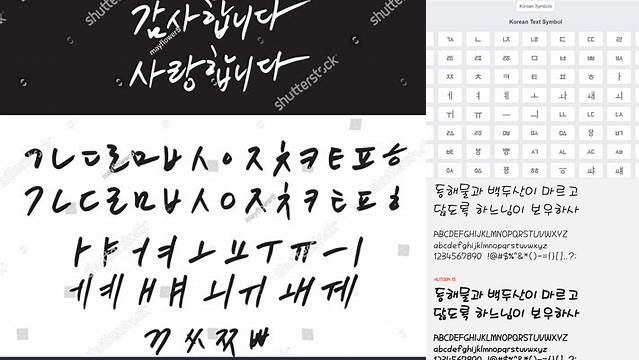
Korean Fonts: Copy, Paste, And Aesthetic Magic!
Hey guys! Ever scrolled through social media, seen those super cool, stylish Korean captions or usernames, and thought, "How do they DO that?!" Well, secret's out â it's often all about the Korean fonts copy paste aesthetic. It's like having a secret weapon to instantly elevate your online presence, making your text pop with a unique flair thatâs totally you. Whether youâre a K-pop stan, a drama lover, or just someone who appreciates beautiful typography, understanding how to use these aesthetic Korean fonts can seriously level up your game. We're talking about transforming plain text into something visually captivating, something that tells a story even before you read the words. This isn't just about looking pretty, though; it's about creating a vibe, an identity, a whole mood for your online persona. Imagine your Instagram bio, your Twitter header, or even your digital journaling â all infused with that unmistakable Korean aesthetic. Itâs accessible, itâs fun, and honestly, itâs addictive once you start playing around with it. So, buckle up, because weâre diving deep into the wonderful world of Korean fonts, exploring how you can easily copy and paste them to create stunning, aesthetic results that will make your friends go, "Whoa!" Get ready to unlock a new level of digital creativity, making your online world a little more stylish, a little more unique, and a whole lot more you. Itâs time to ditch the default fonts and embrace the magic of Korean typography.
The Charm of Korean Aesthetic Fonts: Why They Stand Out
Alright, let's talk about why these Korean aesthetic fonts have such a magnetic pull, guys. It's more than just a trend; there's a genuine artistic quality to them that resonates with people. Think about it: standard fonts are often clean, functional, and maybe a little, dare I say, boring. Korean aesthetic fonts, on the other hand, are like a breath of fresh air. They come in an incredible variety, from delicate and flowing scripts that resemble brushstrokes to bold, impactful characters that have a strong graphic presence. Many of them are designed with a keen eye for balance and harmony, drawing inspiration from traditional Korean calligraphy, art, and even nature. This deep cultural root gives them an authentic feel that you just donât get with Western fonts. When you use them, youâre not just typing; youâre weaving a bit of Korean culture and artistry into your digital communication. This is especially true when you focus on the aesthetic aspect. Weâre talking about fonts that evoke specific moods: playful, elegant, mysterious, modern, or even a bit quirky. The visual language of these fonts can communicate emotion and personality in a way that plain text simply can't. For instance, a delicate, wispy font might convey a sense of shyness or artistic sensitivity, while a more angular, sharp font could express confidence and modern edge. This nuanced communication is a huge part of their appeal. They allow you to express yourself beyond just words, adding layers of meaning and visual interest. Plus, in a world saturated with digital content, standing out is key. Using unique Korean aesthetic fonts is a fantastic way to make your profile, your posts, or your messages instantly recognizable and memorable. Itâs a form of digital self-expression thatâs both creative and accessible. The ability to easily copy and paste them means anyone can experiment and find fonts that truly represent their individual style or the specific vibe they want to create. Itâs like having a personal stylist for your text, helping you curate the perfect look. So, next time youâre thinking about how to make your online presence more captivating, remember the power of these beautiful, culturally rich Korean aesthetic fonts. Theyâre a simple yet powerful tool to infuse your digital world with artistry and personality.
Understanding Korean Typography: Beyond Just Characters
So, what makes Korean typography so special, you ask? Itâs really fascinating when you break it down, guys. Unlike the Latin alphabet, which is primarily composed of individual letters, Korean, or Hangeul, is structured into syllable blocks. This fundamental difference allows for a much wider range of visual possibilities when it comes to font design. Each block can be arranged in various ways â stacked vertically or horizontally â and the interplay between consonants and vowels within these blocks creates a unique canvas for designers. Korean aesthetic fonts often play with these block structures, manipulating the spacing, weight, and style of the jamo (the individual consonant and vowel components) to create distinct visual personalities. Think about the artistry involved: a font might emphasize the roundness of certain vowels or the sharpness of specific consonants, creating a flowing, organic feel, or a more geometric, structured look. This level of detail and intentionality is what sets Korean typography apart. Itâs not just about legibility; itâs about creating a visual rhythm and aesthetic appeal within each syllable block and across the entire text. Many Korean fonts are also influenced by traditional Korean art forms, such as calligraphy, ink painting, and even traditional patterns. Youâll find fonts that mimic the texture of brushstrokes, the subtle variations in ink density, or the elegant curves found in traditional architecture and textiles. This connection to heritage gives these fonts a depth and authenticity thatâs incredibly appealing. Furthermore, the development of digital Korean fonts has seen incredible innovation. Designers are constantly pushing boundaries, creating fonts that are both contemporary and rooted in tradition. You see fonts that are minimalist and clean, perfect for a modern, chic aesthetic, and then you see others that are ornate and decorative, adding a touch of vintage charm or playful flair. The key takeaway here is that Korean typography is a dynamic field where cultural heritage meets digital creativity. Understanding this context helps us appreciate why Korean aesthetic fonts feel so unique and captivating. They are the result of a rich linguistic structure combined with a strong artistic sensibility, offering a world of expressive possibilities for anyone looking to add a special touch to their digital communication. Itâs a beautiful fusion of language, art, and technology, making Hangeul a truly versatile and visually engaging writing system.
The Art of Korean Font Selection: Finding Your Vibe
Picking the right Korean font for aesthetic purposes is kinda like choosing an outfit, you know? Itâs all about expressing a mood, a personality, and making a statement. With the vast array of Korean fonts available, finding that perfect one can feel overwhelming, but itâs also super fun! The key is to consider the vibe youâre going for. Are you aiming for something super cute and bubbly, maybe for a personal blog or a fan account? Then youâll want to look for fonts with rounded edges, perhaps a slightly playful slant, or even little decorative elements. Think of fonts that look like they were handwritten with a cheerful marker. On the flip side, maybe youâre going for a more sophisticated, elegant, and minimalist look for your business profile or a more mature aesthetic. In that case, youâd lean towards cleaner lines, perhaps a more classic Hangeul structure, or fonts that have a refined, almost calligraphic feel without being overly ornate. Think of fonts that evoke a sense of calm and order. For those who love the K-drama or K-pop scene, you might want fonts that reflect that trendy, stylish energy. This could mean bolder fonts with sharp edges, unique character shapes that stand out, or even fonts that have a slightly retro or futuristic feel, depending on the specific trend youâre channeling. Don't be afraid to experiment! Try out different fonts for different purposes. A font that looks amazing for your Instagram bio might not be the best choice for a formal email (though who knows, maybe it could be for a really cool email!). The beauty of the copy-paste method is that you can easily try out different styles without any commitment. Just copy, paste, see how it looks, and if itâs not quite right, paste another one! Itâs a low-stakes way to discover what truly resonates with your personal style. Consider the context too. A font thatâs super decorative might be hard to read in large blocks of text, so itâs often best reserved for headings, usernames, or short phrases where its visual impact can shine. For longer captions or descriptions, a slightly simpler, more legible aesthetic font might be a better choice. Ultimately, finding your vibe with Korean fonts is a journey of exploration. Browse through font generators, look at examples online, and trust your instincts. What speaks to you? What feels most authentic to the message you want to convey? Thatâs your Korean font. Itâs about finding that sweet spot where readability meets undeniable style, creating a digital signature thatâs uniquely yours.
Exploring Different Styles: From Cute to Chic Korean Fonts
Okay, guys, let's dive into the fun part: exploring the sheer variety of cute Korean fonts and chic Korean fonts you can use! It's like having a massive digital makeup kit for your text. For those leaning towards the adorable and kawaii aesthetic, there are tons of options. Think fonts with soft, rounded shapes, perhaps with a slightly bouncy baseline or exaggerated features like big, friendly vowels. These fonts often give off a youthful, energetic, and super approachable vibe. Theyâre perfect for fan accounts, personal blogs where you share your daily life, or anything you want to feel extra friendly and inviting. Imagine using a font that looks like it was written by a character in a slice-of-life anime â thatâs the kind of charm weâre talking about! You can find fonts that have a hand-drawn feel, almost like a doodle, which adds an extra layer of personality and warmth. Then you have the chic Korean fonts. These are the ones that exude sophistication, elegance, and a modern, often minimalist, sensibility. They might feature clean, crisp lines, a more balanced and structured Hangeul block, or perhaps a subtle flair that hints at traditional calligraphy without being overly complex. These are fantastic for professional profiles, minimalist journaling, or any situation where you want to convey a sense of refined taste and understated style. Think of the typography you see in high-end fashion magazines or sleek tech company branding â thatâs the kind of effortless cool these fonts can bring to your digital space. Beyond just cute and chic, youâll also find fonts that lean towards a more artistic or vintage feel. Some Korean fonts have a brushstroke quality, reminiscent of traditional East Asian calligraphy, offering a sense of depth and cultural richness. Others might have a distressed or textured look, giving them a vintage or grunge aesthetic that can be really impactful. There are even futuristic or sci-fi inspired fonts that play with geometric shapes and sharp angles. The key is to explore and see what resonates with you. Don't be afraid to mix and match, either! You could use a bolder, more decorative Korean font for your username and a cleaner, more legible one for your descriptions. The possibilities are endless, and the best way to find your favorites is simply to play around. Use a Korean font generator or search for examples online, then practice the copy-paste magic. See how different styles transform the same words. This exploration is what makes the aesthetic Korean font scene so exciting â itâs a constant discovery of new ways to express yourself visually.
The Power of Korean Fonts for Social Media Bios
Alright, let's talk about making your social media bio sing, guys! Your bio is prime real estate â it's often the first thing people see when they land on your profile, and using Korean fonts for bios is a brilliant way to make an instant, memorable impression. Think about it: everyone else might be using the standard system fonts. By incorporating a stylish Korean font, you immediately grab attention and signal that you have a unique sense of style. Itâs a subtle yet powerful way to stand out from the crowd and showcase your personality. Whether youâre aiming for a cute, chic, artistic, or even a mysterious vibe, thereâs a Korean font that can help you achieve it. For example, if youâre a K-beauty enthusiast or a fan of Korean dramas, using a font that has a slightly elegant or trendy feel can perfectly reflect your interests. Itâs like saying, âThis is what Iâm about,â without using up precious character count on explaining it. Imagine your Instagram bio: instead of just your name and a few emojis, you have your name or a catchy phrase written in a beautiful Korean font. It adds a visual hook that encourages people to explore your content further. Itâs also a great way to incorporate keywords or themes related to your niche. If youâre a travel blogger focusing on East Asia, a stylish Korean font can add an authentic touch to your bio. The key is to choose a font that is still legible enough for people to understand what youâre saying, especially if your bio includes important information like links or calls to action. While super decorative fonts can look amazing, sometimes a slightly simpler, yet still distinctive, Korean font strikes the perfect balance for bios. Experiment with different fonts to see how they change the overall look and feel of your profile. Copy-pasting these fonts is incredibly easy, so you can try out several options before settling on the one that feels just right. Itâs a simple hack that has a disproportionately large impact on your profile's aesthetic appeal. Make your bio work harder for you by giving it that special Korean font treatment â itâs a small change that makes a big difference in reflecting your unique style and interests.
####### Making Your Instagram Captions Pop with Korean Text
Ever wanted your Instagram captions to have that extra oomph, that special something that makes people stop scrolling and double-tap? Using Korean text in captions can totally do that for you, guys! Itâs a fantastic way to add a layer of visual interest and express a certain mood or aesthetic. Imagine writing a heartfelt caption about your love for K-culture, and then weaving in a key phrase or your username in a beautiful Korean font. It instantly adds context and flair, connecting you more deeply with your audience who appreciate that aesthetic. Itâs not just about using the font; itâs about using it strategically. You could use a bold, eye-catching Korean font for a title or a key quote within your caption, making it stand out from the regular text. Or perhaps you use a more delicate, flowing font for a more personal or reflective part of your caption. This variation in typography adds rhythm and visual appeal, guiding the readerâs eye through your content. Itâs also a subtle nod to your interests, particularly if youâre a fan of Korean music, movies, or art. Think about how K-pop idols or Korean influencers often use unique fonts in their social media posts â itâs part of their curated online image. You can borrow from that inspiration! The beauty of the copy-paste method is that it allows you to seamlessly integrate these stylish Korean characters into your existing captions without needing any special software. Just draft your caption, find the Korean font you like, copy it, paste it right into your caption text, and voilĂ ! Youâve instantly elevated the visual presentation. Remember to consider readability, though. If youâre using a very decorative font, it might be best for shorter phrases or words to ensure your message still comes across clearly. But for adding that extra touch of style, personality, and aesthetic appeal, incorporating Korean text and fonts into your Instagram captions is a game-changer. Itâs a simple yet effective way to make your content more engaging and visually memorable, showing off your unique taste and interests to the world.
######## Finding Aesthetic Korean Fonts Online: Tools and Resources
So, where do you actually find all these amazing aesthetic Korean fonts? Itâs easier than you might think, guys! The internet is basically a treasure trove. One of the most popular and straightforward methods is using online Korean font generators or symbol converters. These websites are designed specifically for this purpose. You type in your text in English (or sometimes Korean, depending on the generator), and it spits out various stylized versions of your text using different Unicode characters that mimic Korean Hangeul or other aesthetic styles. Many of these generators offer a wide range of styles, from elegant and cursive to bold and blocky, allowing you to experiment and find the perfect look. Just search for terms like âKorean font generator,â âaesthetic text generator,â or âfancy Korean textâ and youâll find plenty of options. Another great resource is looking at existing social media profiles, especially those of your favorite K-pop idols, K-drama actors, or popular Korean influencers. They often use unique fonts in their usernames, bios, and posts, and you can often see what kind of styles are trending. While you might not be able to copy their exact font (as some might be custom or require specific apps), you can get a really good idea of the aesthetic you like and then search for similar styles using the generator tools. Websites dedicated to typography and font design might also feature collections of Korean-inspired or aesthetic fonts, although these might sometimes require installation rather than direct copy-pasting. However, for the ease of copy-pasting, the online generators are usually your best bet. Remember that these are often special Unicode characters designed to look like Korean fonts, rather than actual installable Korean fonts. This is what makes them universally copy-pasteable across different platforms and devices. So, keep experimenting with different search terms and exploring various websites. Youâll quickly discover a fantastic collection of tools that will help you find the perfect Korean aesthetic fonts to make your digital presence truly shine. Itâs all about exploring the digital landscape and finding those hidden gems that allow you to express your unique style.
######### The Technical Side: Unicode and Copy-Pasting Korean Fonts
Alright, letâs get a little nerdy for a sec, guys, and talk about the magic behind Korean fonts copy paste. How does it actually work? Itâs all thanks to something called Unicode. Think of Unicode as a universal standard that assigns a unique number (a code point) to every character, symbol, and emoji across different languages and platforms. So, when you see those super cool Korean aesthetic fonts, youâre not actually seeing a different font file being loaded. Instead, youâre seeing text thatâs been created using special Unicode characters that look like Korean Hangeul or have an aesthetic style. Websites and tools that generate these aesthetic fonts are essentially taking your regular text and replacing each character with its corresponding, visually styled Unicode equivalent. For instance, a simple 'a' might be replaced with a Unicode character that looks like a decorative Korean vowel, or a space might be replaced with a special Unicode space character that affects kerning or spacing. This is why you can copy and paste these stylish texts from one application (like a browser) to another (like Instagram or Twitter) and have them display correctly, as long as the platform supports those specific Unicode characters. Most modern platforms â social media sites, messaging apps, browsers â are pretty good at rendering a wide range of Unicode characters, which is why this copy-paste method is so effective. However, there might be instances where a platform doesnât support a particular character, and it might appear as a blank square (often called a âtofuâ or âmissing characterâ symbol). This is rare with common aesthetic fonts, but itâs something to be aware of. The beauty of this system is its universality. You donât need to install any special Korean keyboard or font pack on your device to use these aesthetically modified texts. You just need a way to generate them (like an online tool) and a platform that can display them. Itâs this underlying technology of Unicode that empowers us to easily add that unique Korean aesthetic flair to our online communication, making our text visually exciting and distinct without any complex technical hurdles. Itâs basically digital magic powered by a universal character code.
############### The Evolution of Korean Aesthetic Typography
Itâs super interesting to think about how Korean aesthetic typography has evolved, guys. Hangeul, as a writing system, is relatively young compared to many others, and its digital evolution has been incredibly rapid. Initially, when computers and digital devices first became widespread, Korean character display was quite basic. Fonts were often limited, functional, and focused purely on legibility within the constraints of early digital technology. However, as technology advanced and design software became more sophisticated, Korean typographers and designers began to explore the immense creative potential of Hangeul. They started drawing inspiration from traditional Korean art forms â calligraphy, ink painting, traditional patterns, and even the natural curves found in Korean landscapes â and translating these influences into digital fonts. This led to the creation of fonts that were not just legible but also expressive and artistic. The rise of the internet and social media further accelerated this trend. Suddenly, people had a global platform to share their creations and personal styles. Online font generators and symbol converters emerged, democratizing the use of stylized text. This allowed anyone, not just designers, to experiment with unique typography. We saw the explosion of